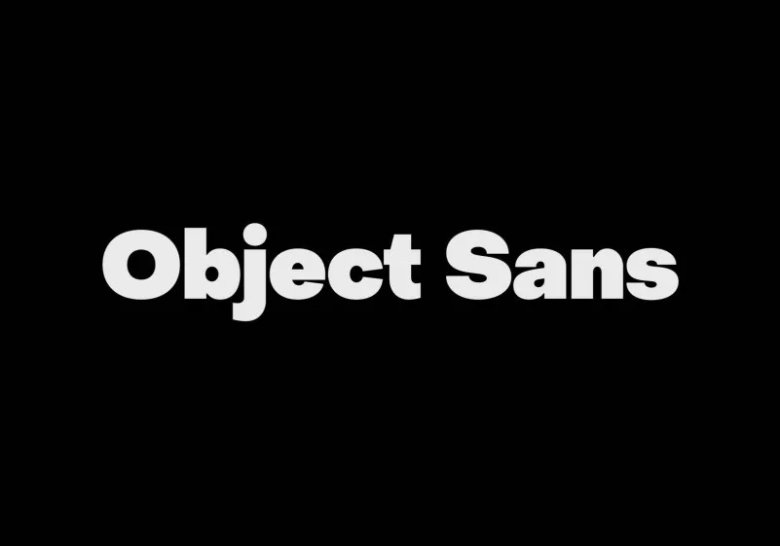
Object Sans Font Family
Object Sans Font
Allfreefonts always want to bring you the best, most beautiful fonts. This is a simple yet refined All-Caps sans serif. The glyphs formed in extend width, smooth strokes, moderate stem contrast, and soft edges to pursue clarity, quick recognizable text and warm personality. Introducing Object Font Family! Object designed and shared by Alex Slobzheninov. Object Sans Font Family is a contemporary type family that puts together the best qualities of Swiss neo-grotesks and geometric fonts.
It’s a multifunctional workhorse designed to work best in any printed and on-screen contexts, including logo design, brand identities, websites, packaging, posters and headlines; regular weight is carefully tuned for small sized body text. Object Sans comes in 7 weights, upright and slanted each.
Object Sans Serif Font Family